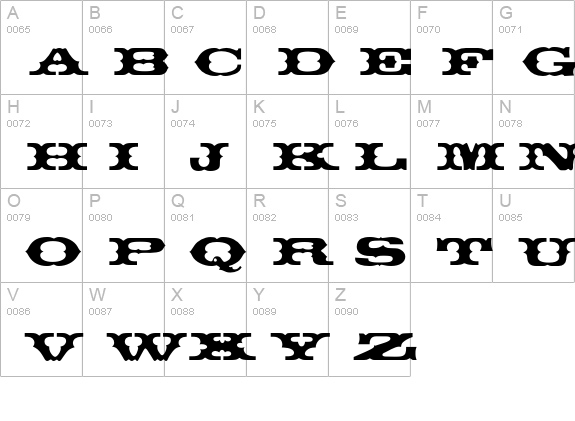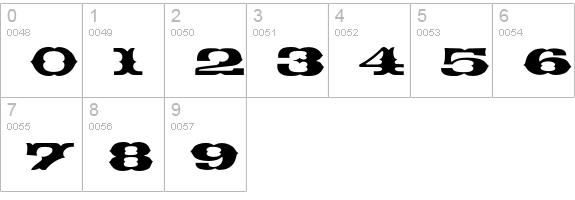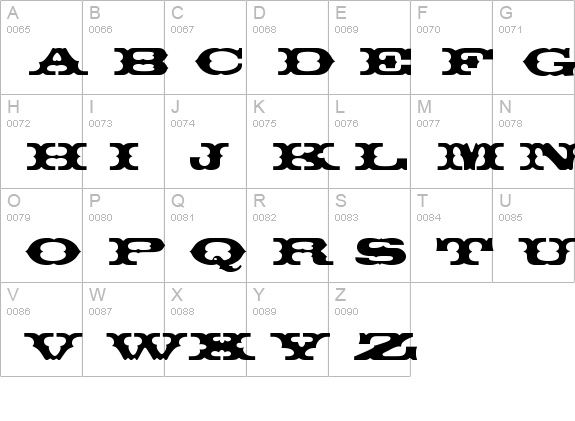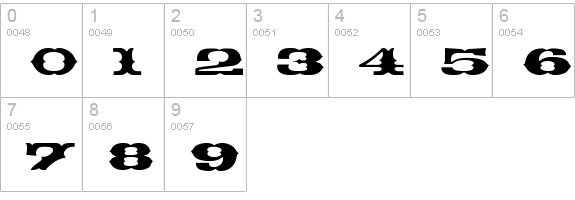
ThunderbirdEF-Regular Font Details
ThunderbirdEF-Regular is the standard, neutral variant in the ThunderbirdEF typeface family \xE2\x80\x94 well suited to general body text, paragraphs, and standard typographic work.
ThunderbirdEF-Regular is a stunning and versatile font that is sure to make a statement in any design project. This font exudes a sense of power and strength, with its bold and angular letterforms. The ThunderbirdEF-Regular font is perfect for headlines, titles, and logos, as it commands attention and demands to be noticed. What makes the ThunderbirdEF-Regular font even more appealing is that it is free. Yes, you read that right – this incredible font is freely available to download at FontsMarket.com. This means that you can add this impressive font to your collection without spending a dime. Whether you are a professional designer or a casual hobbyist, having access to high-quality free fonts like ThunderbirdEF-Regular is essential. Not only does ThunderbirdEF-Regular offer an eye-catching design, but it also provides excellent legibility. Each letter is crafted with care, ensuring that readability is never compromised. This makes the font suitable for a wide range of applications, from print materials to digital projects. Whether you are designing a poster, a website, or a brand identity, ThunderbirdEF-Regular has got you covered. With its distinctive style and its availability as a free download, ThunderbirdEF-Regular is a must-have font for any designer. Don't miss out on the opportunity to add this powerful and captivating font to your collection. Visit FontsMarket.com today and get your hands on ThunderbirdEF-Regular – the font that combines elegance, strength, and affordability.